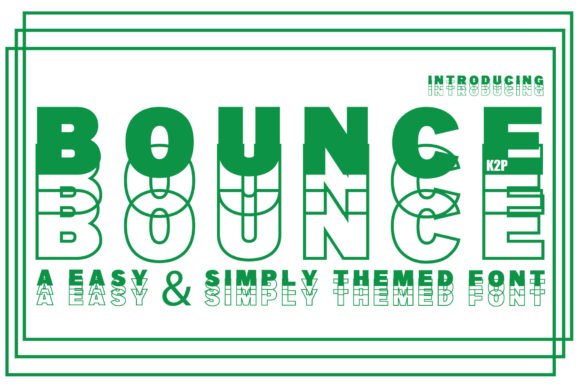
Give Your Designs a Boost with the Bounce Font
You’re brainstorming ideas for your latest project, but something’s missing. You want to capture the essence of speed and energy, but the fonts just don’t seem to fit. That’s where the Bounce Font comes in – a bold and authentic display font that’s guaranteed to make your designs stand out.
Perfect for sport, racing designs, or anything related to speed, the Bounce Font is a valuable addition to any designer’s toolkit. Its incredibly cool style is sure to grab attention and leave a lasting impression. Whether you’re working on a logo, advertisement, or social media campaign, the Bounce Font will give your project the boost it needs to succeed.
Bounce Font Key Features
- Unique Characteristics: Bounce Font features a unique, playful design with rounded edges and a bouncy feel, making it perfect for creating engaging and attention-grabbing content.
Bounce Font Review
I recently had the chance to work with the Bounce Font, and I must say it’s a unique addition to any design project. ✨ The font’s playful and energetic feel immediately caught my attention, making it perfect for creative and fun projects. The rounded shapes and dynamic lines give it a lively personality that’s hard to ignore.
- The Bounce Font works well in digital designs, such as social media posts, ads, and website headers.
- It’s particularly effective for highlighting titles and headings, adding a touch of whimsy and playfulness.
- The font’s versatility allows it to be used in a variety of contexts, from casual to more formal designs.
However, I did encounter some limitations. ⚠️ The font can be overwhelming in large blocks of text, making it difficult to read. Additionally, it may not be the best choice for formal or professional designs, as its playful nature may not be suitable for such contexts.
Overall, I’m impressed with the Bounce Font’s ability to add a touch of fun and creativity to any design project. While it may not be the best choice for every situation, it’s certainly a valuable addition to any designer’s toolkit.
Getting the Most Out of Bounce Font
To get the most out of Bounce Font, try the following tips:
- Use Bounce Font in combination with other fonts to create a unique look.
- Play with color and background to create a striking contrast.
Bounce Font is perfect for:
- Social media posts and graphics.
- Advertising and marketing materials. Alternatives to Bounce Font for Designers
- Choose a bold and bright background color to contrast with the font.
- Use the Bounce Font to display the quote, adjusting the font size and color to create visual interest.
- Add some decorative elements, such as icons or shapes, to enhance the design.
- Pairs well with minimalist illustrations or geometric shapes to create a modern look.
- Use a bold, sans-serif font for the background text to create a striking contrast.
- Use the Bounce Font to highlight important information, such as promotions or events.
- Combine the font with bold, colorful shapes to create visually appealing graphics.
- Keep the background simple and clean to let the font be the focus.
- Pairs well with bright, bold colors to create a playful and energetic look.
- Use a minimalist design approach to let the Bounce Font be the main attraction.